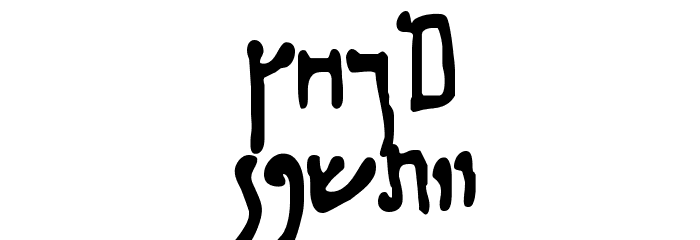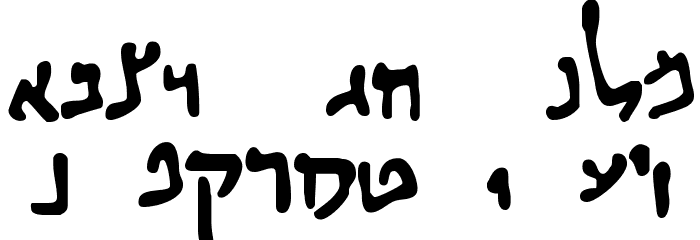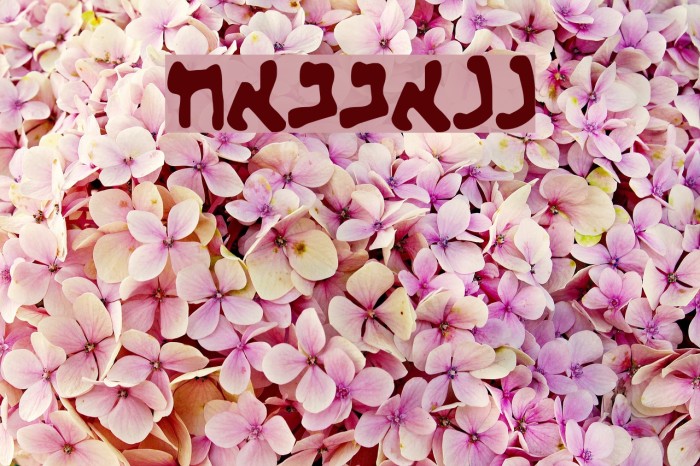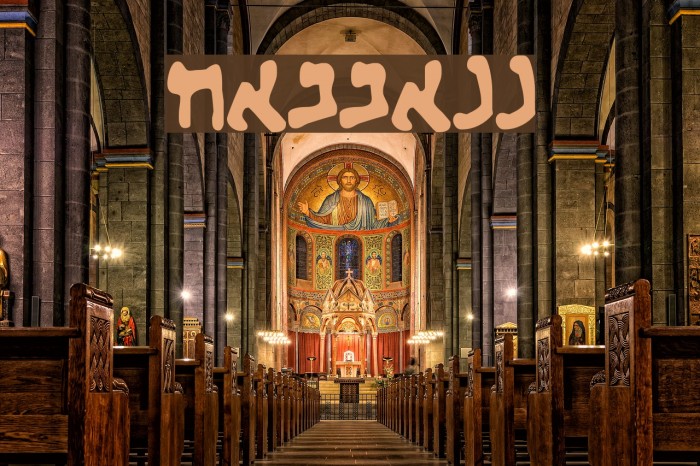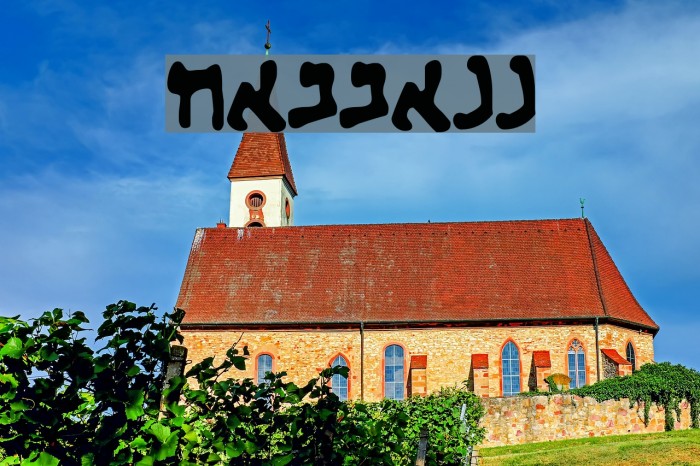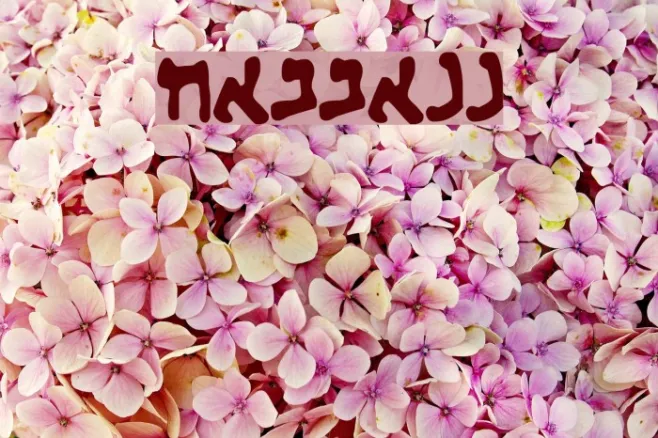
HABBAKUK Font
This font features a unique and artistic style, reminiscent of traditional calligraphy with a modern twist. The characters are bold and expressive, with a hand-drawn appearance that gives them a personal and organic feel. The strokes are varied in thickness, adding a dynamic and lively quality to the text. Each letter is distinct, yet they all harmonize well together, creating a cohesive look. The font's playful and informal nature makes it stand out, making it suitable for creative projects that require a touch of personality and flair.
A bold, hand-drawn font with a playful and artistic style.
- Proposed Projects: Ideal for creative projects such as posters, greeting cards, and artistic branding.
- Use Case: Logos, Artistic projects, Posters